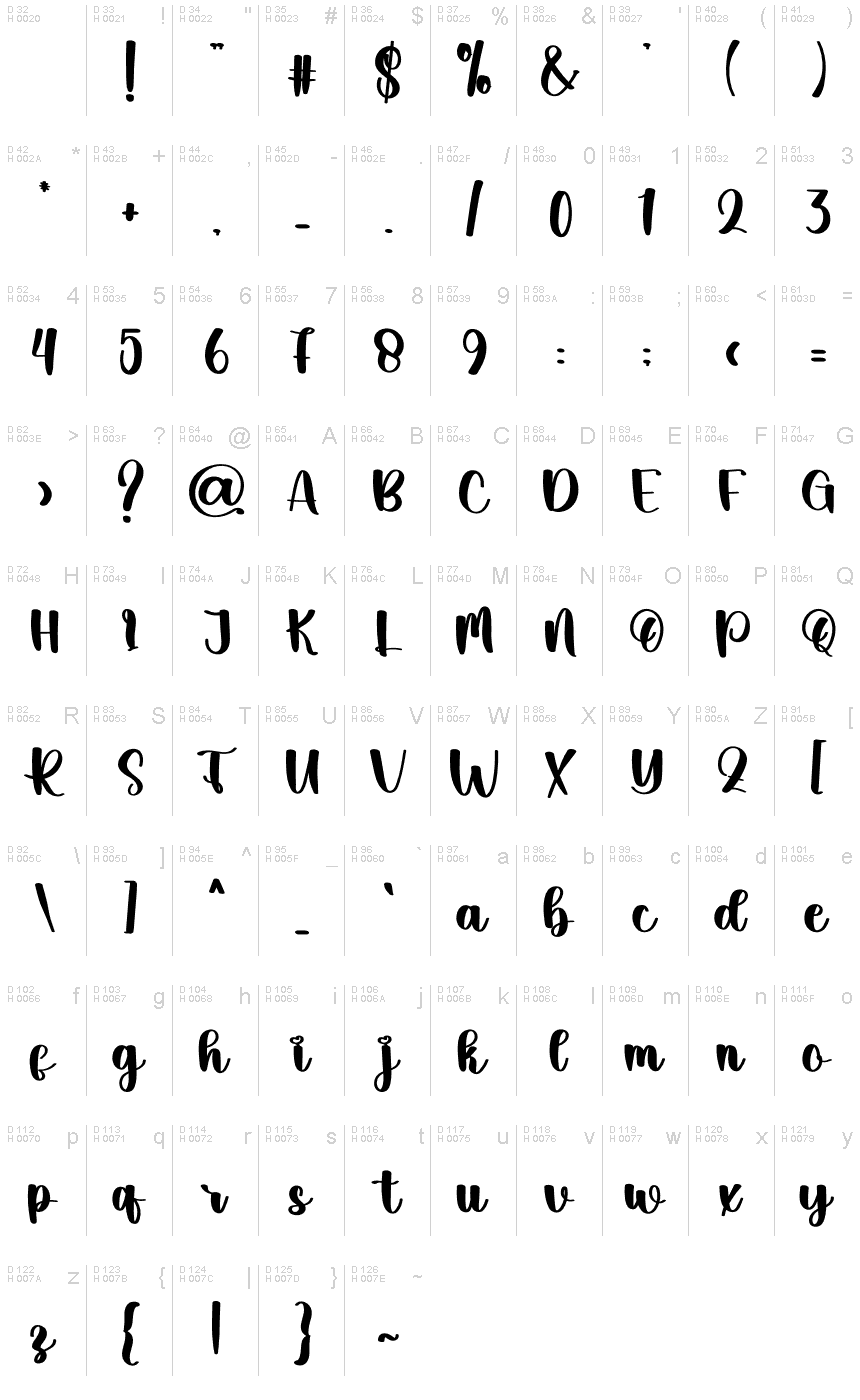
Slimsimple
Slimsimple, a bold and captivating font designed by Inermedia Studio, boasts a smooth brush style that adds a touch of elegance to any project.
With its cute and playful charm, this font is perfect for creating eye-catching headlines and logos for children's books, toy packaging, or whimsical greeting cards. Its bold weight ensures high impact while maintaining legibility. Whether you're designing a fun-filled website or crafting engaging social media posts, Slimsimple is the ideal choice to infuse your designs with youthful energy and creativity.